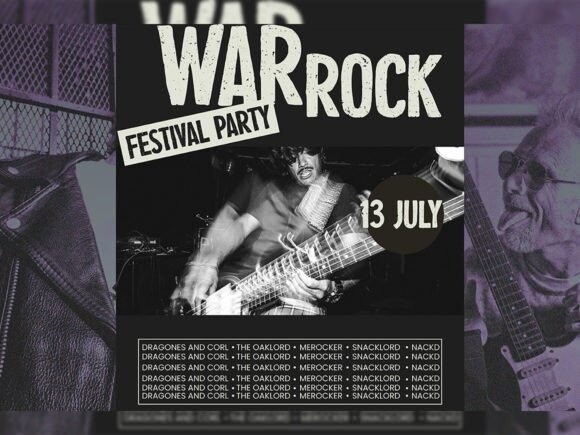
Punk Return Font
Punk Return Font is a rebellious display font that encapsulates the essence of punk culture. With bold and edgy letterforms, this typeface radiates attitude and energy, making it the perfect choice for projects that demand a gritty and impactful aesthetic. Whether you’re designing posters, album covers, or any creative endeavor that needs a punk rock flair, Punk Return brings the raw and unapologetic spirit of punk right into your typography. Get ready to infuse your designs with a dose of bold rebellion!